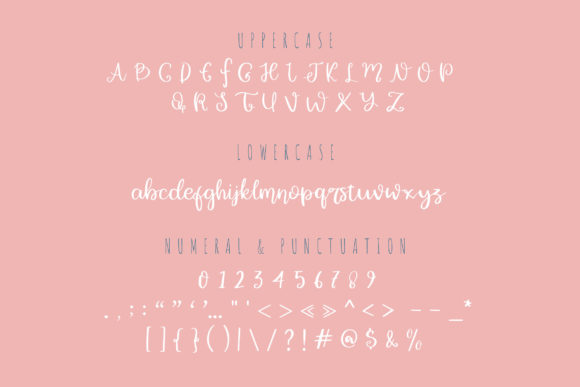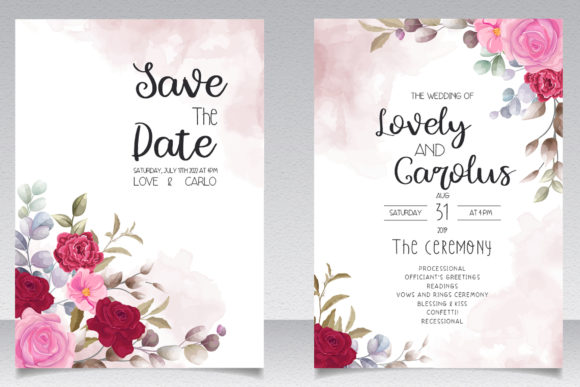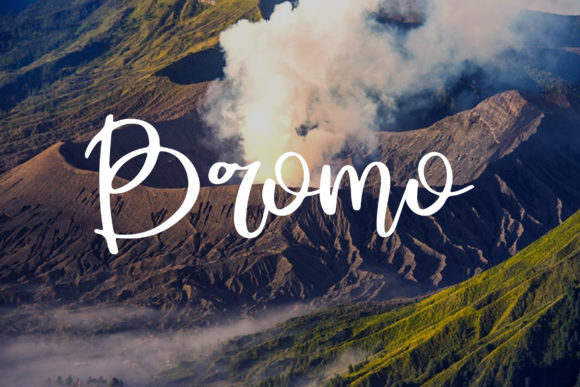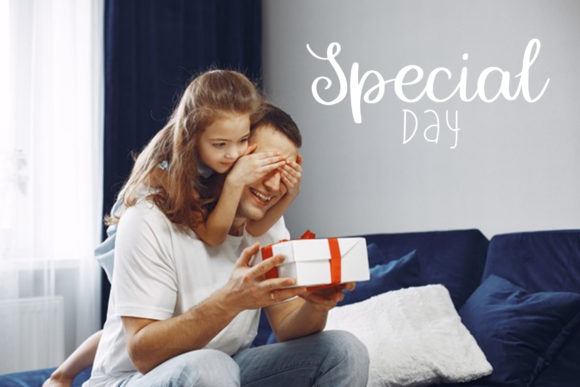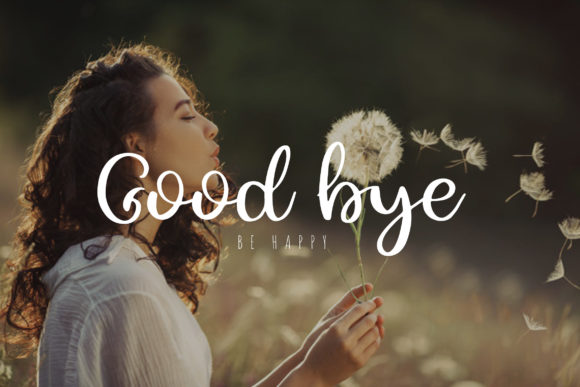
Tamara Font
About Tamara Font
Tamara is a stylish and delicate script font that exudes elegance and class. This font was particularly crafted for those who need a beautiful and refreshing look to their designs.